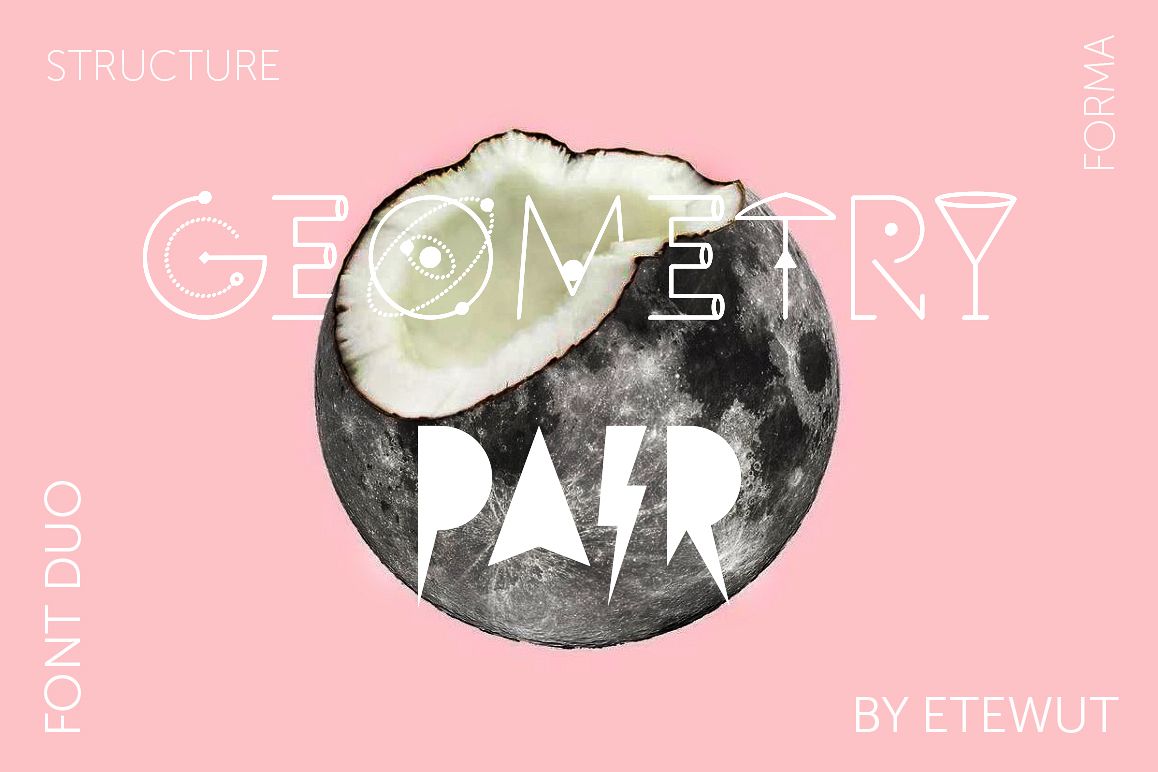
Geometry pair
Welcome to my Geometry Pair.
Introducing two fonts Forma & Structure that will make you happy. One of them is a compilation of shadow-based symbols like silhouettes. Another one has a rock of glyphs that don't repeat each other, but looks in the same style. Surprisingly they fit to each other and you can mix them on your works, be it print or web design.Make your graphic works more stylish that highlight your uniqueness from other. Just wonder people who loves funky design and who respect tiny details. Now you have opportunity to grab them for just $8about:
• multi language support
• ALL CAPS
• kerned with microscope
Make your design fascinating, don't be shy!